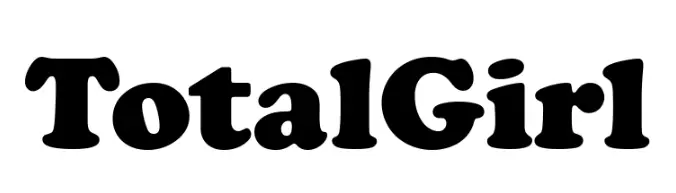
βThe Total Girl magazine, a popular Australian publication targeting pre-teen and teenage girls, utilizes the Cooper Black font for its nameplate. Designed by Oswald Bruce Cooper in 1921, Cooper Black is an ultra-heavy serif typeface known for its bold, rounded letterforms and vintage appeal.